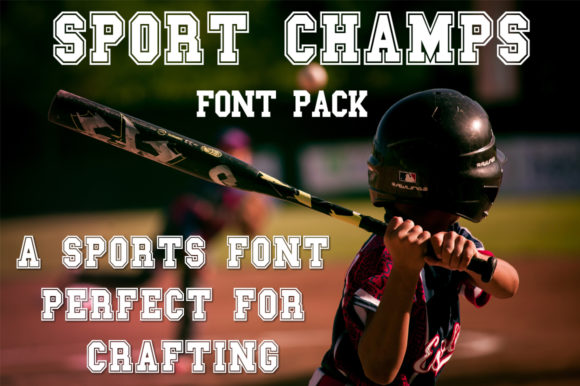
Sport Champs Font: The Ultimate Display Font for Headers and Crafts
Are you looking for a unique display font that can add a touch of excitement to your headers, ornamental designs, and craft products? Look no further than the Sport Champs font! This distinctive font is specifically designed to make a statement, and its versatility makes it perfect for a wide range of creative projects.
What Makes Sport Champs Font So Special?
The Sport Champs font is an exceptional display font that boasts a range of features that set it apart from other fonts. Here are some of its key characteristics:
- Unique Design: Sport Champs font has a one-of-a-kind design that is both modern and stylish. Its bold lines and dynamic curves make it perfect for creating eye-catching headers and titles.
- Highly Versatile: This font is not just limited to headers and titles; it can also be used for ornamental designs, craft products, and more.
- Easy to Read: Despite its bold design, the Sport Champs font is surprisingly easy to read, making it perfect for use in a variety of contexts.
How to Use Sport Champs Font
The Sport Champs font is incredibly easy to use, and its versatility makes it suitable for a wide range of projects. Here are some ideas for using this amazing font:
- Headers and Titles: Use Sport Champs font to create bold, eye-catching headers and titles for your website, blog, or social media posts.
- Ornamental Designs: Add a touch of elegance to your designs with Sport Champs font. Use it to create beautiful ornamental designs for special occasions, such as weddings, birthdays, and holidays.
- Craft Products: Sport Champs font is perfect for craft products, such as handmade cards, gift tags, and other paper crafts.
- Branding and Advertising: Use Sport Champs font to create bold, attention-grabbing branding and advertising materials, such as logos, billboards, and flyers.
The Benefits of Using Sport Champs Font
There are many benefits to using Sport Champs font in your creative projects. Here are some of the most significant advantages:
- Increased Visibility: Sport Champs font is designed to grab attention, making it perfect for headers, titles, and other prominent design elements.
- Improved Readability: Despite its bold design, Sport Champs font is easy to read, making it suitable for use in a variety of contexts.
- Enhanced Creativity: Sport Champs font is a versatile font that can be used in a wide range of creative projects, from ornamental designs to craft products.
- Professional Look: Sport Champs font has a professional, polished look that is perfect for branding, advertising, and other business applications.
Sport Champs Font vs. Other Display Fonts
So, how does Sport Champs font compare to other display fonts on the market? Here are some key differences:
- Uniqueness: Sport Champs font has a unique design that sets it apart from other display fonts.
- Versatility: Sport Champs font is highly versatile and can be used in a wide range of creative projects.
- Readability: Sport Champs font is surprisingly easy to read, despite its bold design.
In conclusion, Sport Champs font is an exceptional display font that is perfect for headers, ornamental designs, craft products, and more. Its unique design, versatility, and ease of use make it a valuable addition to any creative project. So why wait? Download your copy of Sport Champs font today and take your designs to the next level!